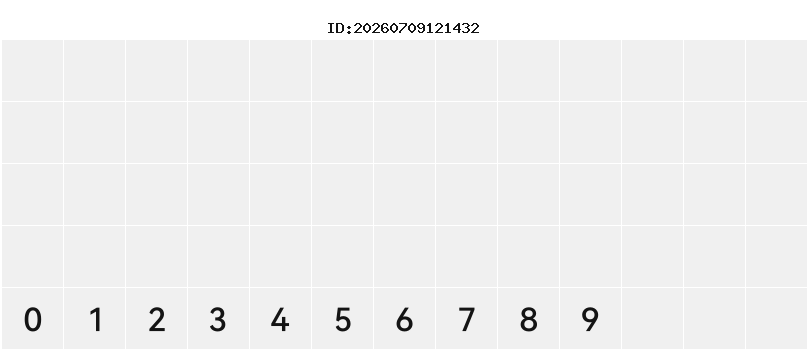
• Font Name: HarmonyOS Sans Naskh Arabic UI Medium
• Designer: Huawei Device Co., Ltd & Hanyi Fonts
• Manufacturer: Hanyi Fonts
About HarmonyOS Sans Naskh Arabic UI Medium.ttf
HarmonyOS Sans Naskh Arabic UI Medium.ttf is a modern, elegant sans-serif font designed for ultimate readability and visual harmony. Perfect for branding, headlines, web design, and print materials.